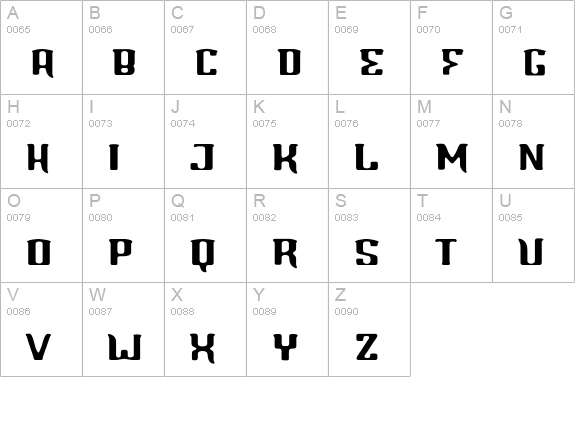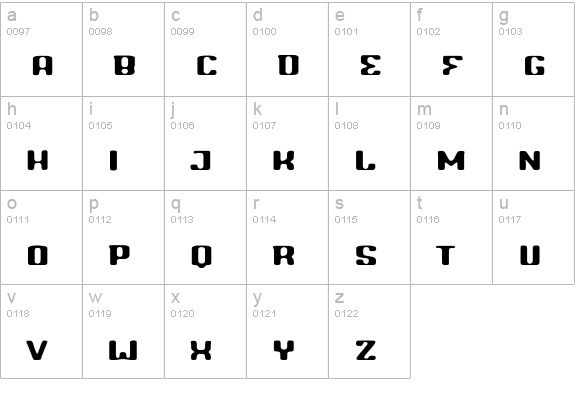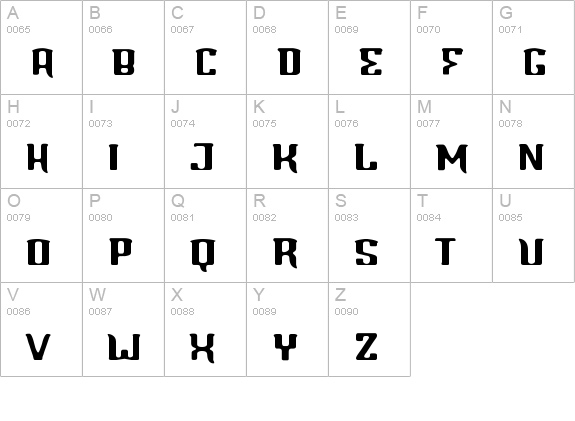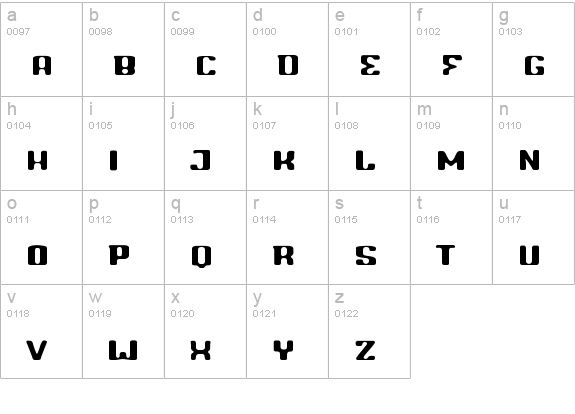
Blinddate Font Details
Blinddate font is a stunning and elegant typeface that captivates with its unique charm and sophistication. Created with meticulous attention to detail, this font exudes a sense of mystery and intrigue, making it perfect for a wide range of design projects. With its sleek lines and graceful curves, Blinddate font adds a touch of class and elegance to any text or graphic. Whether used for headlines, logos, invitations, or any other design element, this versatile font is sure to make a lasting impression. The best part? Blinddate font is available for free download at FontsMarket.com, making it easily accessible to designers and creatives looking to elevate their projects with a touch of style and sophistication. Don't miss out on this incredible opportunity to enhance your designs with the timeless beauty of Blinddate font. Download it today and let your creativity shine!